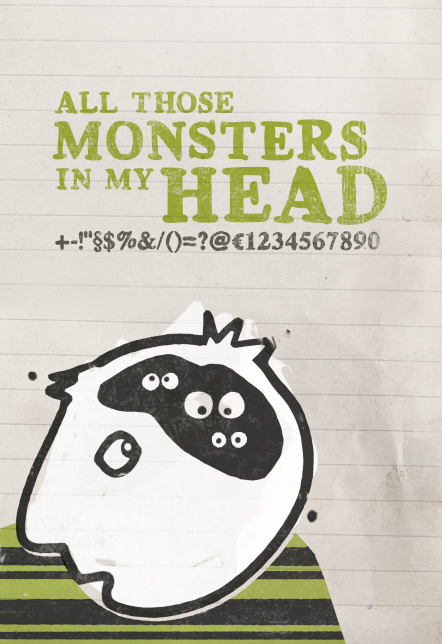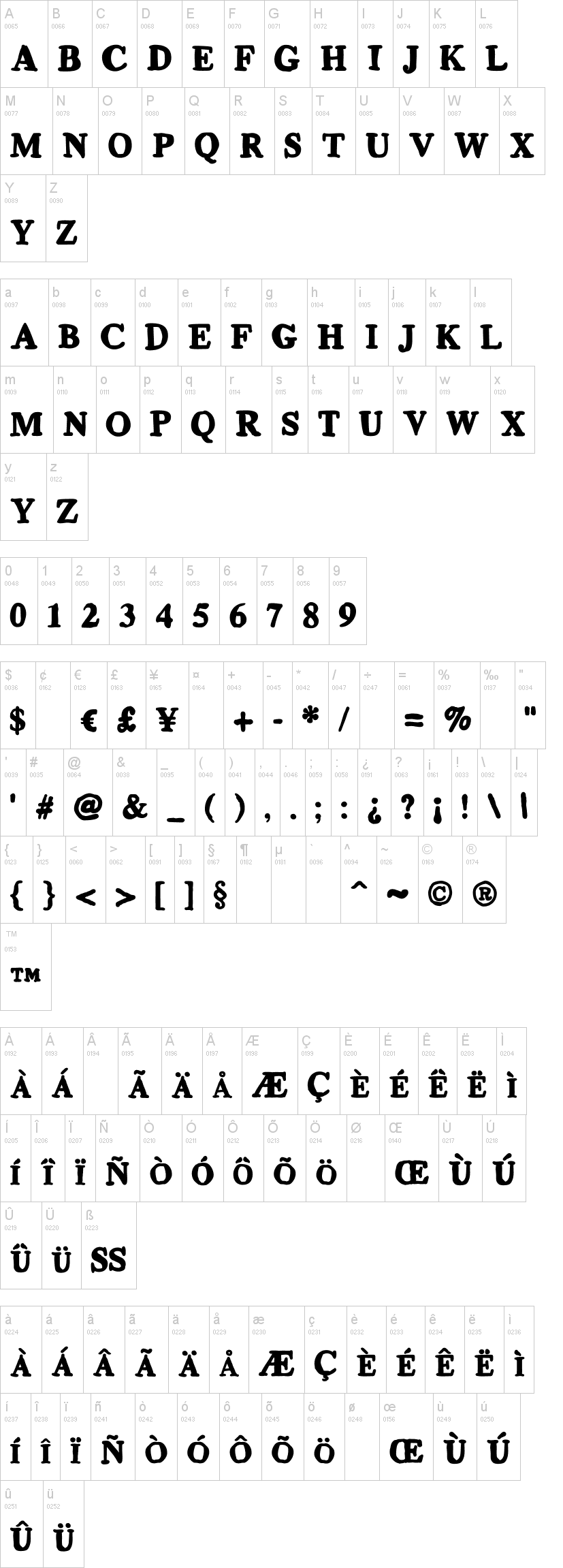
ML Monstrolino
Note of the authorMONSTROLINO is a heavy capitals-only font.
Though big and small letters are capital glyphs, they are slightly different. Therefore, you can vary between two letter versions to make your typography look more handwritten.